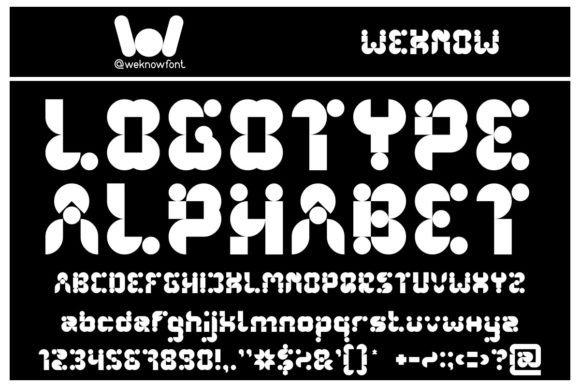
Unveil the Essence of Elegance and Creativity with Logotype Alphabet Font: The Epitome of Monogram Beauty
In a world saturated with digital noise, it's your brand's identity that cuts through the clutter and etches itself into the minds of your audience. Enter the realm of Logotype Alphabet Font—a modern monogram masterpiece meticulously crafted to elevate your creative endeavors.
From the bustling streets of fashion to the silver screen's captivating allure, Logotype Alphabet Font exudes a timeless charm that captivates and inspires. Its intricate curves and flowing strokes evoke a sense of sophistication and elegance, making it the perfect adornment for your logo, logotype, and headline designs.
Step into the arena of corporate identity and brand building, where Logotype Alphabet Font stands as a powerful ally. With its innate ability to command attention, this font transforms your brand into an unforgettable icon, leaving an indelible mark on your industry.
Unleash the boundless potential of Logotype Alphabet Font in the world of fashion. Let its stylish flair adorn your apparel designs, creating clothing and accessories that exude individuality and panache. Its versatility knows no bounds, seamlessly adapting to the vibrant energy of posters, the allure of music and film, the interactive realms of games, and the literary artistry of books and comics.
Harness the power of Logotype Alphabet Font to captivate your audience on social media. Its eye-catching presence will elevate your Instagram posts and YouTube videos, transforming them into captivating visual experiences that leave a lasting impression. Embrace the boundless possibilities of website design, where Logotype Alphabet Font takes center stage, guiding users through an immersive journey that reflects your brand's unique essence.
With Logotype Alphabet Font, your creative projects are no longer mere creations—they transform into expressions of art that speak volumes about your brand's identity. It's not just a font; it's a gateway to a world of limitless possibilities, empowering you to craft designs that resonate with your audience and leave an indelible legacy.